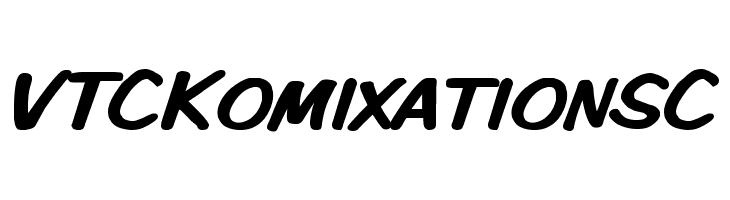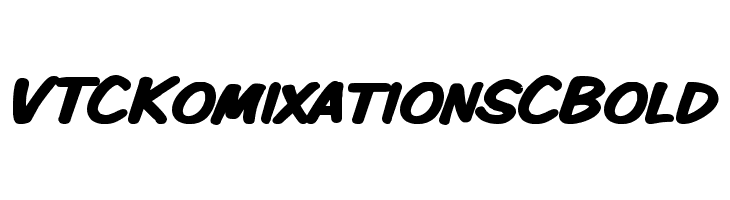
A bold, comic-style handwritten font with a playful and dynamic appearance.
A bold, playful font with rounded edges and a dynamic, handwritten style.
A bold, italicized font with a playful and dynamic style.
A bold, playful handwritten font with thick, rounded strokes and a slightly slanted orientation.
A bold, italicized, comic-inspired font with thick, rounded strokes.